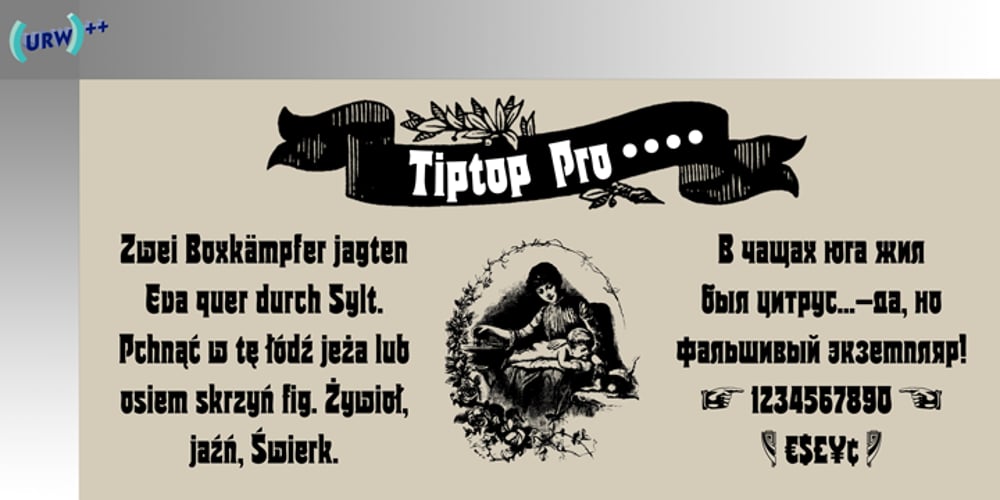
TipTop Font Family was designed by Ralph M. Unger and published by profonts. TipTop contains 1 styles and family package options. TipTop Pro’s origin goes back to around 1900 when the font was released by the German foundry Julius Klinkhardt in Leipzig. Ralph M. Unger redesigned this beautiful art nouveau typeface, extended its character set and digitally remastered it. TipTop Pro fits perfectly into the series of recently released URW++ art nouveau designs (Edda, Gradl, Impression, Joga, Ornella).